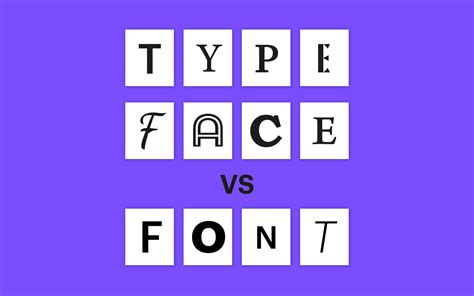
Typeface vs Font The Difference Between Font And Typeface
Font Vs Type. As the name suggests, these are styles without. Web a second classification of typeface is the sans serif typeface.
Web a second classification of typeface is the sans serif typeface. As the name suggests, these are styles without.
As the name suggests, these are styles without. Web a second classification of typeface is the sans serif typeface. As the name suggests, these are styles without.